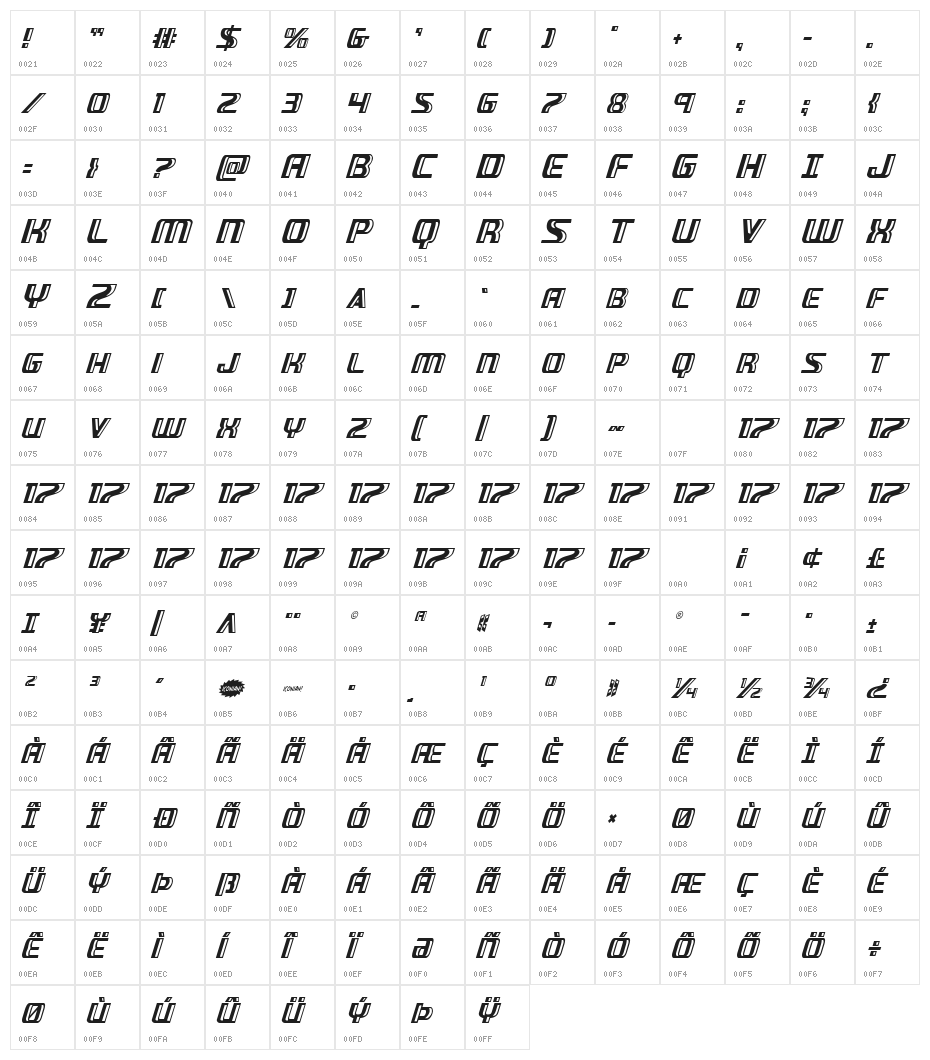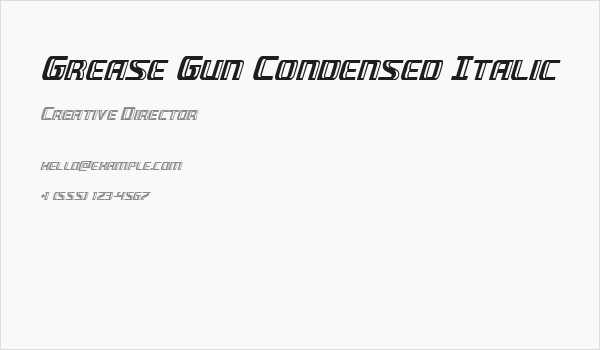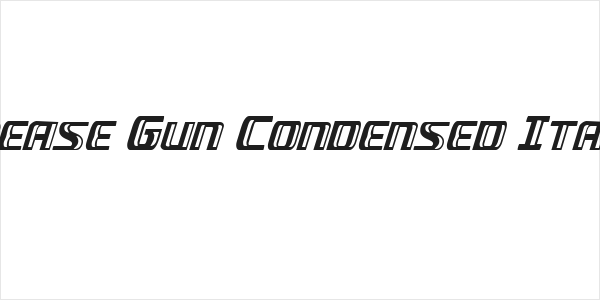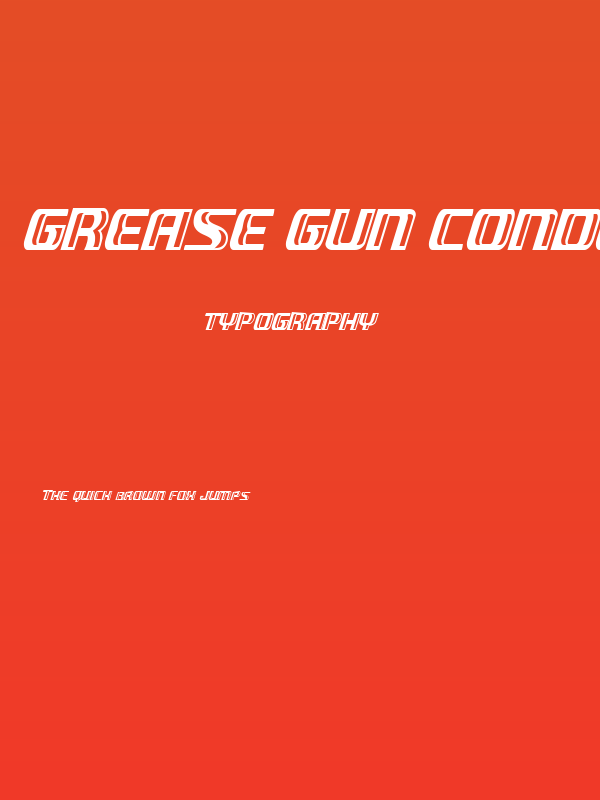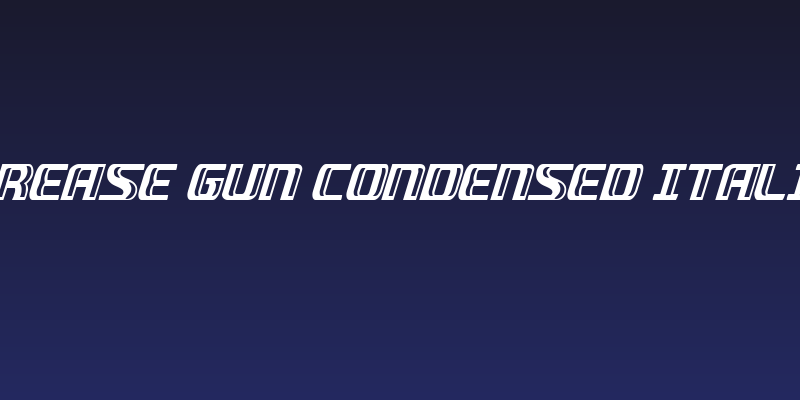
Grease Gun Condensed Italic Font
Grease Gun Condensed Italic Description
This font features a bold and dynamic style with a condensed and italicized form. The characters are designed with a futuristic and mechanical aesthetic, incorporating sharp angles and a sense of movement. The uppercase letters are prominent and assertive, while the lowercase letters maintain the same energetic style. The numerals and special characters are consistent with the overall design, making them suitable for attention-grabbing applications. The font's unique style is ideal for projects that require a modern and edgy look.
| Proposed Projects | Ideal for use in technology branding, automotive advertisements, video game titles, and sci-fi themed posters. |